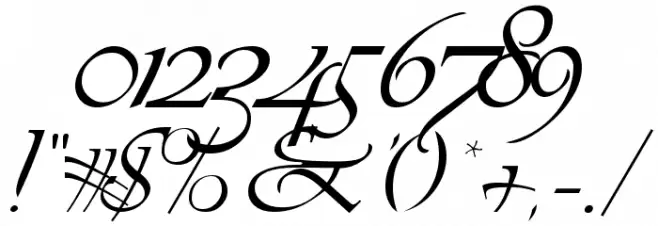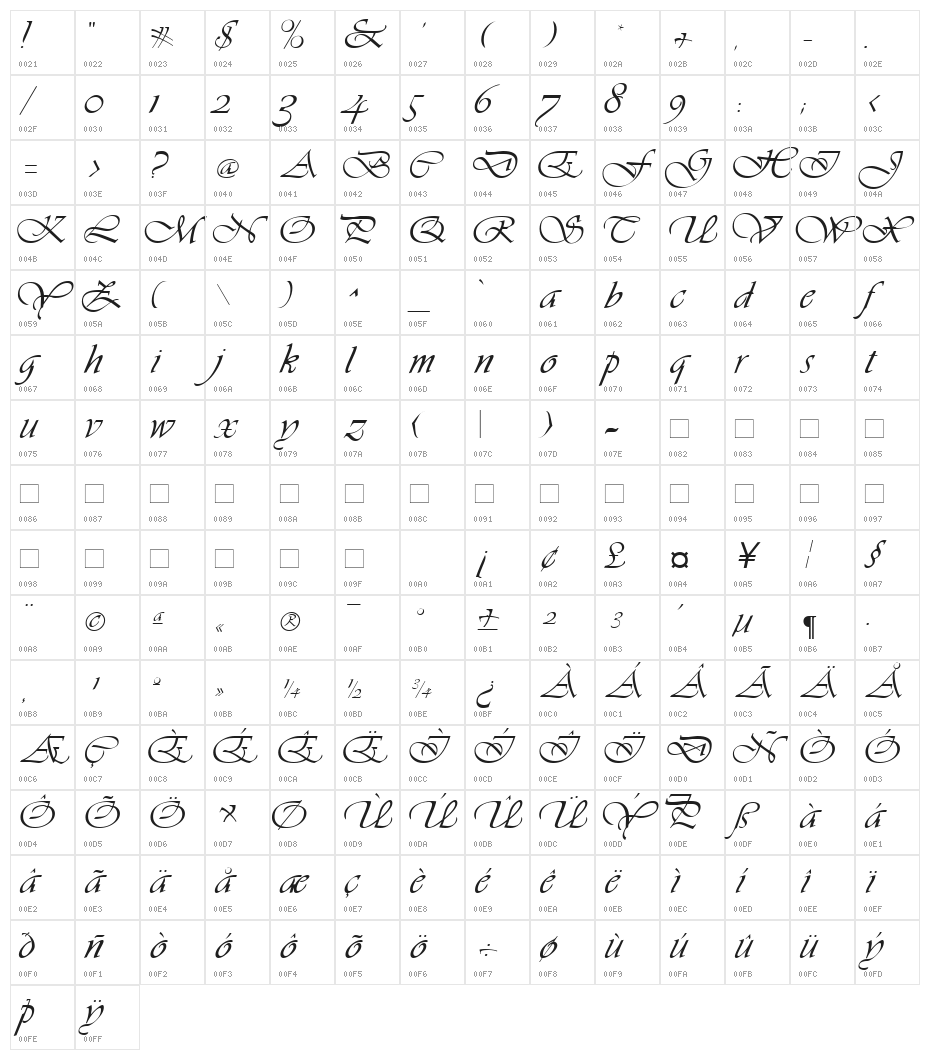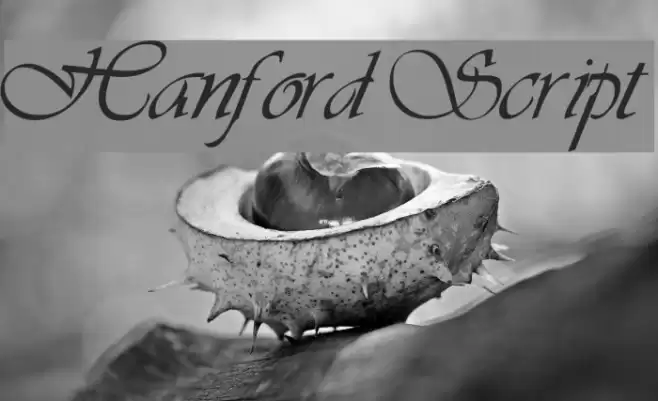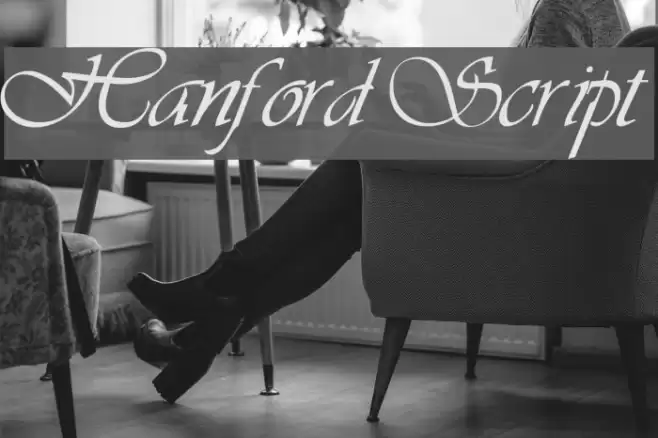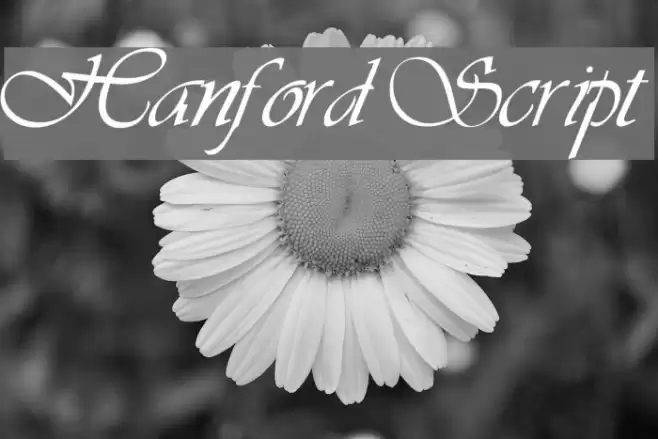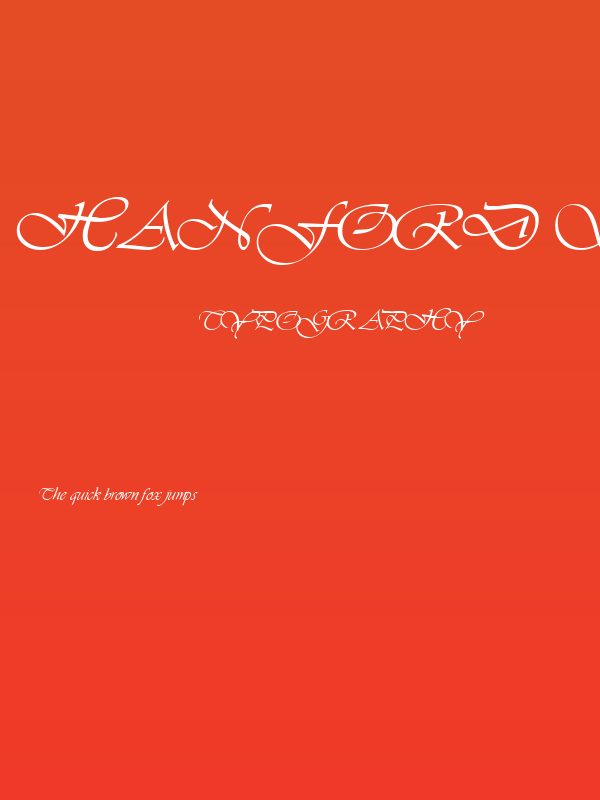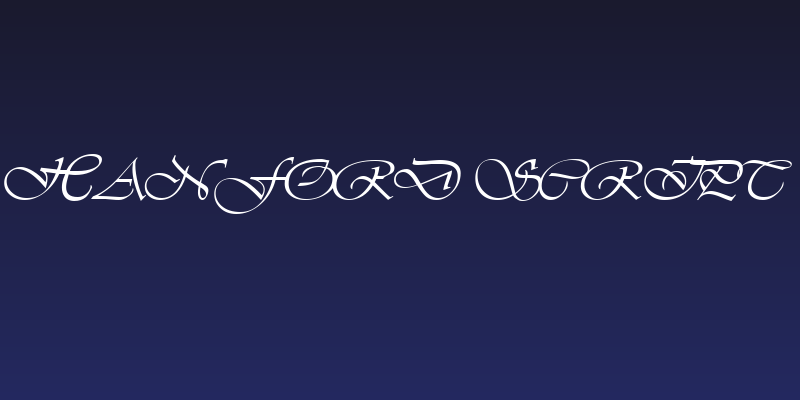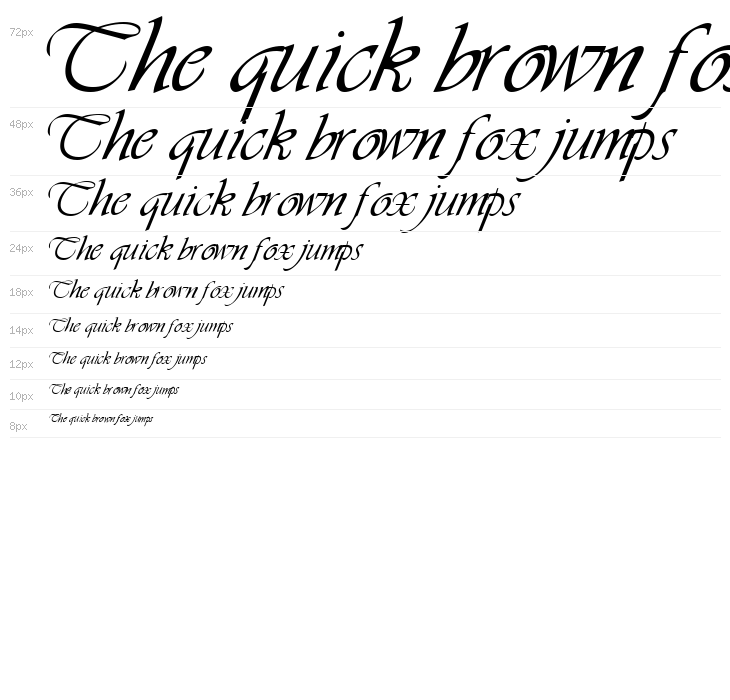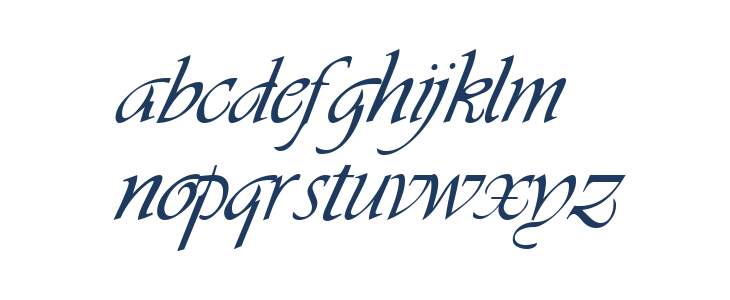
Hanford Script Font
Hanford Script Description
This font features an elegant and flowing script style, characterized by its intricate loops and flourishes. The uppercase letters are particularly ornate, with each character displaying unique decorative elements that enhance its visual appeal. The lowercase letters maintain a consistent slant, contributing to the font's graceful and fluid appearance. Numbers and special characters are designed with the same attention to detail, ensuring a cohesive look across all elements. The overall design exudes sophistication and charm, making it suitable for projects that require a touch of elegance.
| Proposed Projects | Ideal for wedding invitations, luxury branding, and elegant stationery designs. |